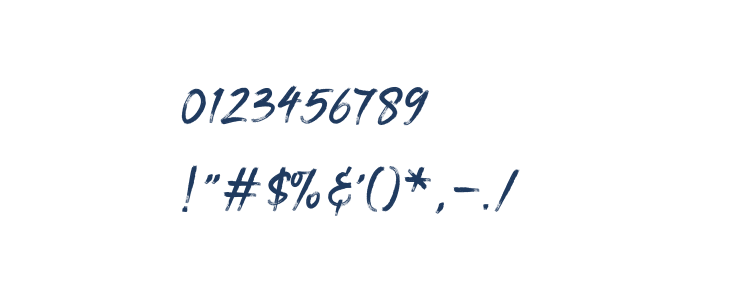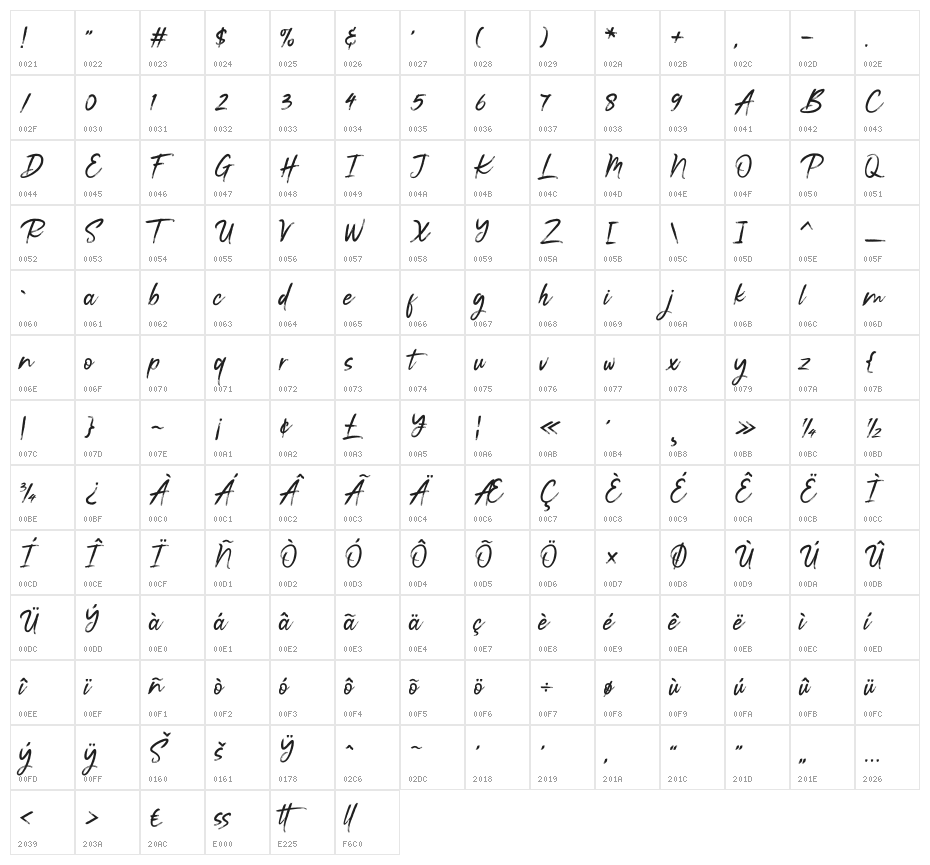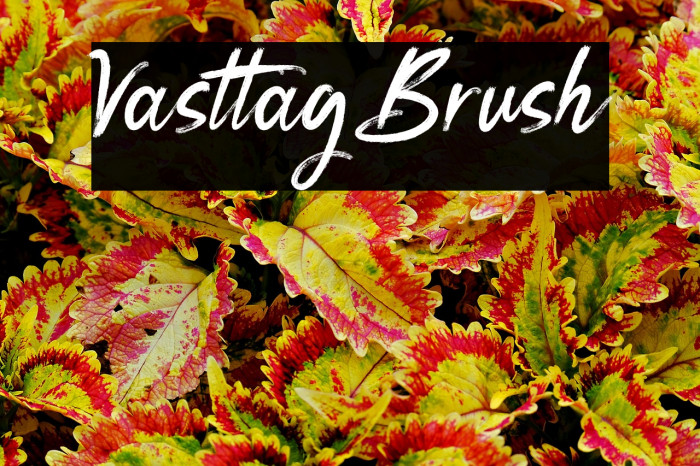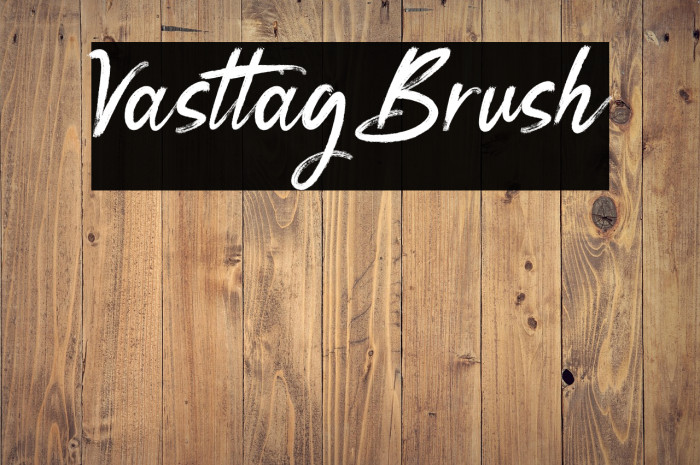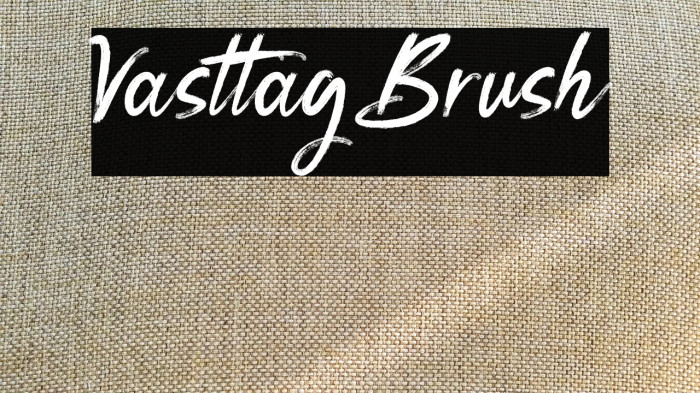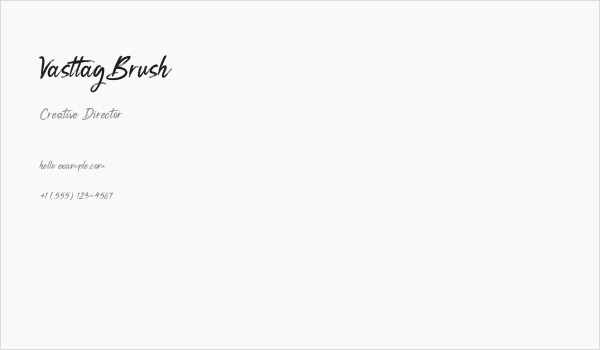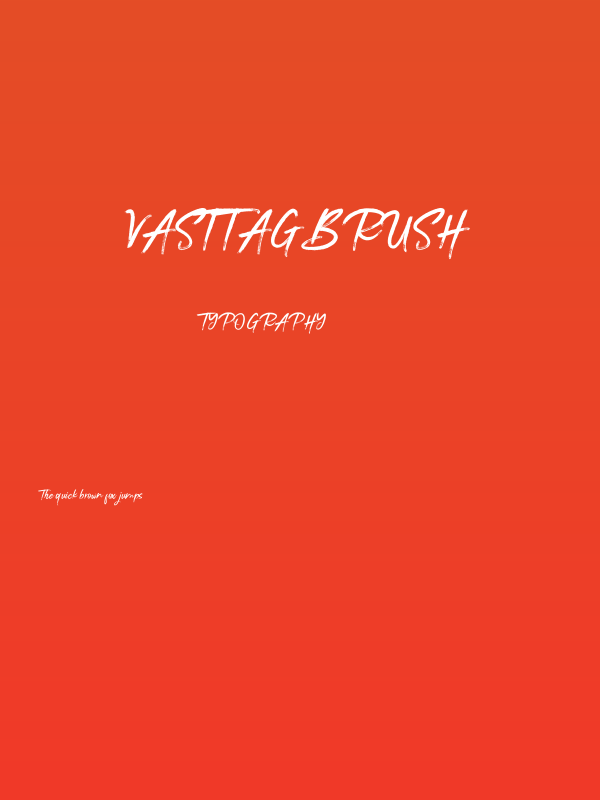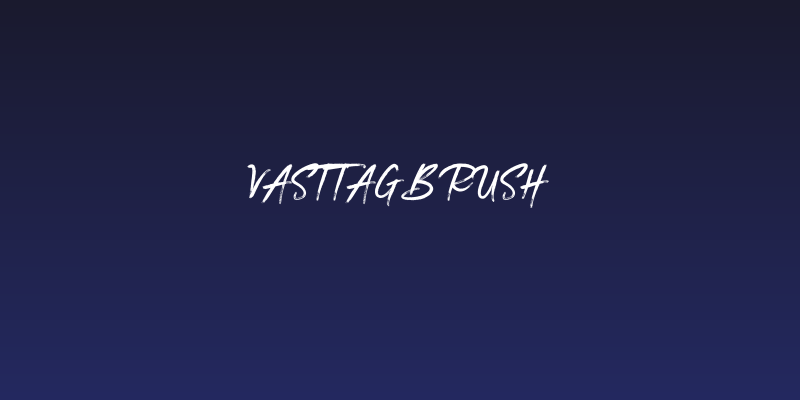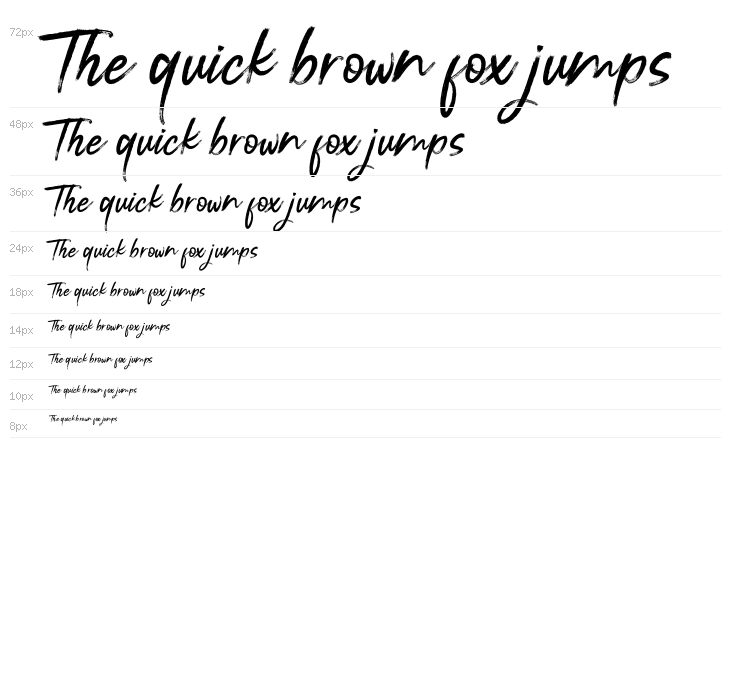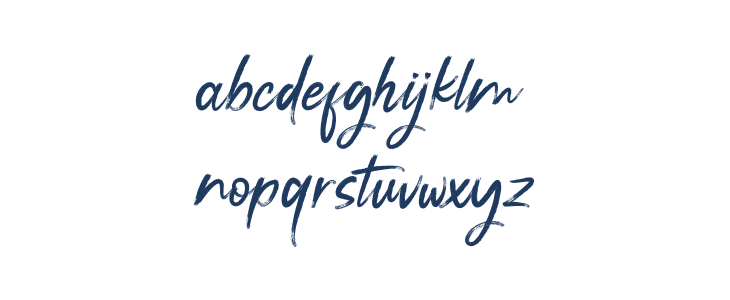
VasttagBrush Font
VasttagBrush Description
This font exudes a dynamic and energetic style, characterized by its brush-like strokes that convey a sense of movement and fluidity. The letters are crafted with varying thickness, giving them a hand-painted appearance that is both artistic and expressive. The uppercase letters stand tall and bold, while the lowercase letters maintain a consistent flow, enhancing the font's overall cohesiveness. Numbers and special characters are designed with the same brushstroke effect, ensuring uniformity across all elements. This font's unique style makes it ideal for projects that require a personal touch or a creative flair.
Proposed ProjectsIdeal for branding, posters, invitations, and artistic projects that require a personal and creative touch.